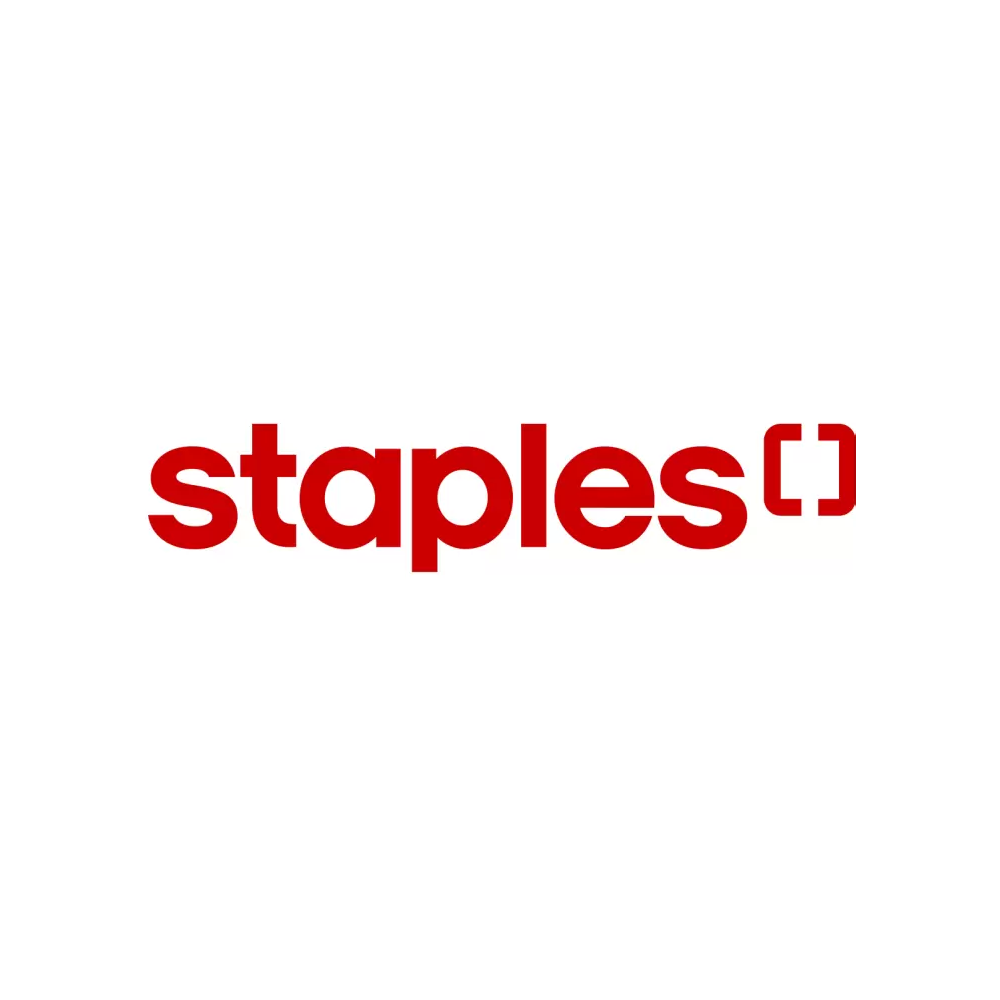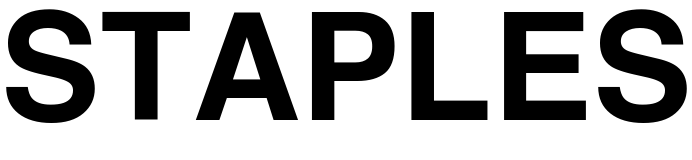
Staples Font
Fonts in UseStaples is a retail chain that specializes in office supplies and products. It is owned by Sycamore Partners and was founded in 1986.
The closest font we could find to Staples logo is Circular Medium by Lineto Type Foundry.
The old Staples logo uses Helvetica Bold with the letter "L" shaped like a staple. The slogan "that was easy" appears below it in Helvetica Roman.